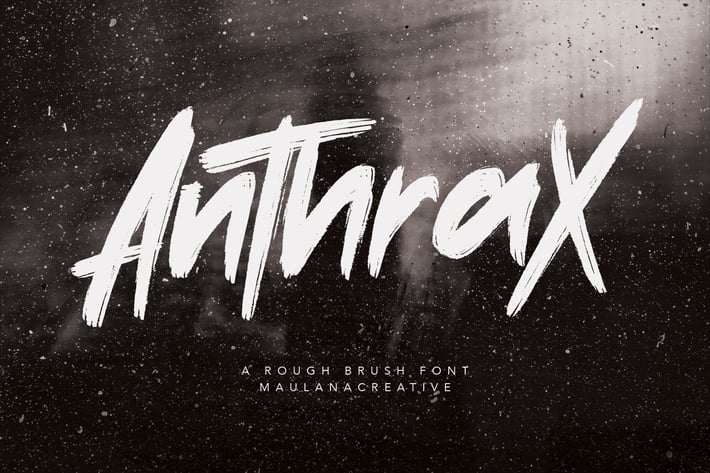
Anthrax Rough Brush Handmade Typeface Font Written
Give your designs an authentic handcrafted feel. "Anthrax" is perfectly suited to signature, stationery, logo, typography quotes, magazine or book cover, website header, clothing, branding, packaging design and more.